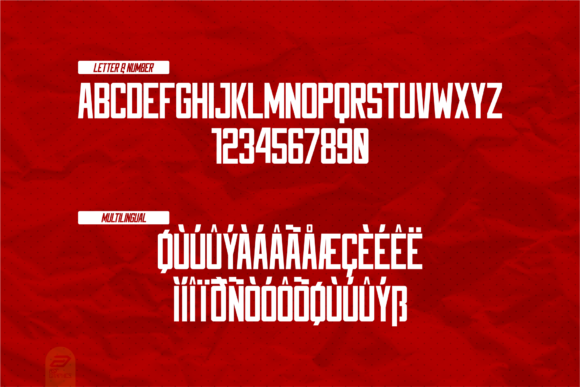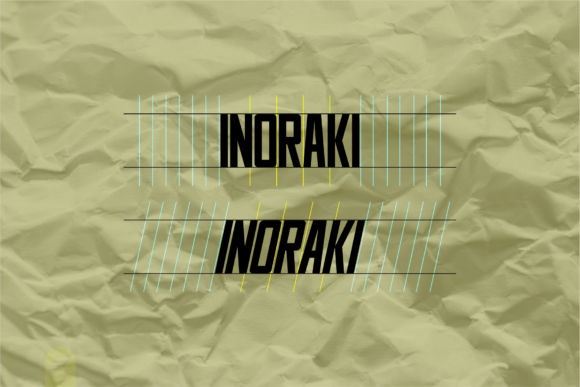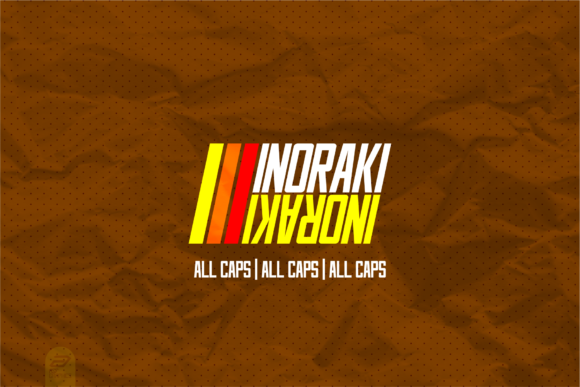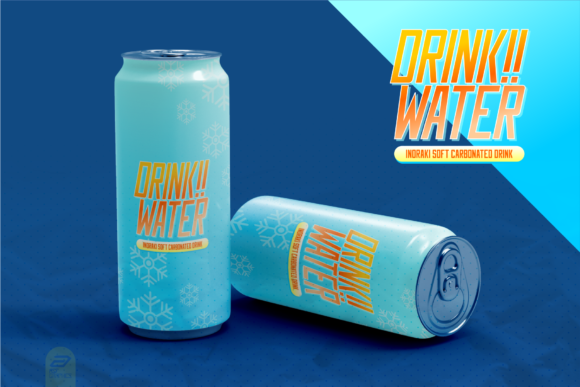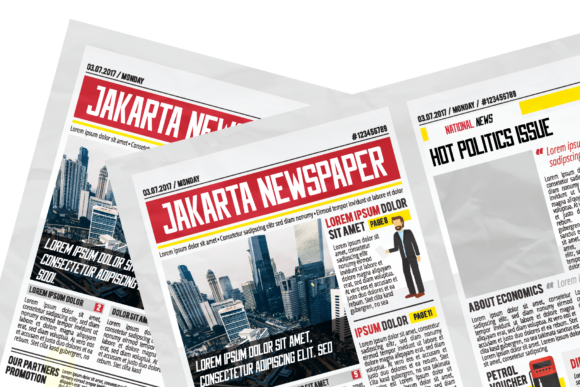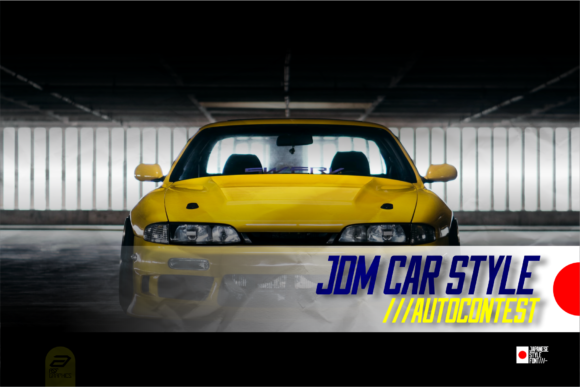
The Perfect Font for Your Next Big Creative Project
Have you ever stared at a blank canvas, waiting for inspiration to strike? It’s that moment when the perfect font can make all the difference. You’re envisioning a bold, eye-catching design that demands attention, but you’re not sure where to start. That’s where the Inoraki Font comes in – a modern, squared-lettered display font designed to elevate your creative ideas and take them to the next level.
The Inoraki Font is more than just a font – it’s a versatile tool that can be matched to a wide range of projects, from sleek logos to striking posters. Its clean lines and geometric shape make it a valuable addition to any designer’s toolkit, allowing you to create stunning visuals that stand out from the crowd. Whether you’re working on a personal project or a client brief, the Inoraki Font is sure to help you achieve your design goals.
Inoraki Font Key Features
- Unique Characteristics: Inoraki Font features a unique blend of modern and traditional elements, with a distinctive x-height and a range of nuanced letterforms that add depth and character to text.
Inoraki Font Review
I recently had the chance to dive into the Inoraki Font, and I must say it’s a fascinating typeface. ✨ One thing that stands out is its unique blend of modern and traditional elements. The font’s quirky personality is immediately noticeable, making it a great fit for projects that need a touch of whimsy.
Another strength of the Inoraki Font is its versatility. ✨ It’s suitable for a wide range of applications, from headings and titles to body text. The font’s legibility is also commendable, making it easy to read even at smaller font sizes.
However, I did encounter a few limitations. ⚠️ The Inoraki Font may not be the best choice for formal or professional projects, as its unconventional design may come across as unpolished. Additionally, some users may find the font’s character set limited, particularly when it comes to international characters.
Here are some key features of the Inoraki Font:
- Unique blend of modern and traditional elements
- Quirky personality makes it perfect for creative projects
- Versatile and suitable for a wide range of applications
- Legible even at smaller font sizes
- Limited character set, particularly for international characters
- May not be suitable for formal or professional projects
Overall, the Inoraki Font is a fun and creative typeface that’s perfect for designers looking to add some personality to their projects. While it may have some limitations, its unique charm and versatility make it a great addition to any font collection.
Practical Application Guide for Inoraki Font
Tips for Getting the Most Out of Inoraki Font
To get the most out of Inoraki font, try pairing it with a clean and simple sans-serif font, such as Arial or Helvetica. Experiment with different font sizes and styles to create visual interest.
The Inoraki font is particularly well-suited for wedding invitations, birthday party invitations, and other special occasion designs. It’s also great for creating elegant and sophisticated business cards and marketing materials.